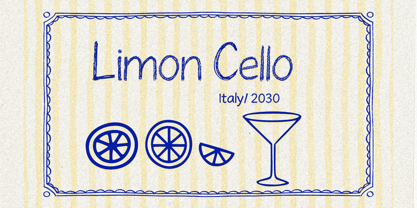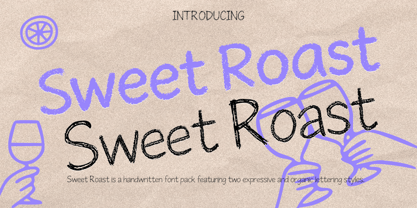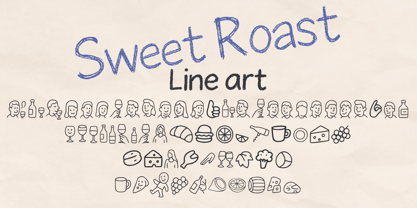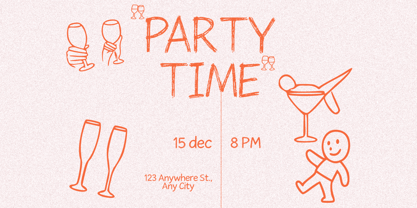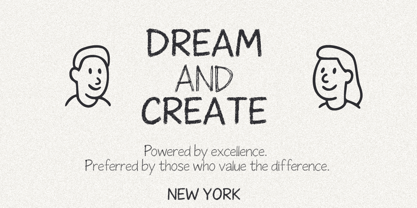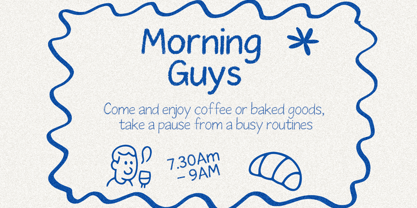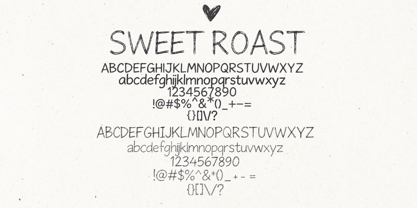
Sweet Roast
by Cocodesign
The Sweet Roast Font Family was designed by Muhammad Zaini and published by Cocodesign. Sweet Roast contains 3 styles and family package options. More about this family
Sweet Roast is a charming handwritten font family that showcases two expressive and organic lettering styles. Each stroke is meticulously crafted to provide a textured hand-drawn feel, evoking a casual and authentic aesthetic reminiscent of chalk, marker, or sketch-based illustrations. The dynamic contrast between the bold style and the delicate dry-brush style enhances its versatility, making it ideal for visual storytelling, branding, and editorial design. With its irregular edges and natural movement, Sweet Roast exudes a playful yet confident personality. This typography maintains a harmonious rhythm and a human touch, making it perfect for projects that aim to convey warmth, spontaneity, and a handmade energy.